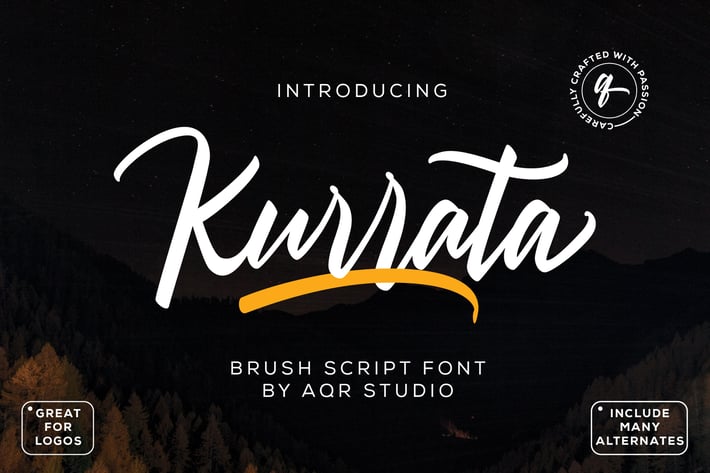
Kurrata Script Fonts
Kurrata is manual lettering with brush marker + bonus UNDERLINE, This font is a great combination for any product design and bussines. Kurrata is comfortable for vintage design, classic design, photography, branding design, T-Shirt and many more.
Kurrata Script Featured With :
- Basic Character and Multilingual Character
- Stylistic Alternates
- Swash Alternates
- Standard Ligatures
- Underline